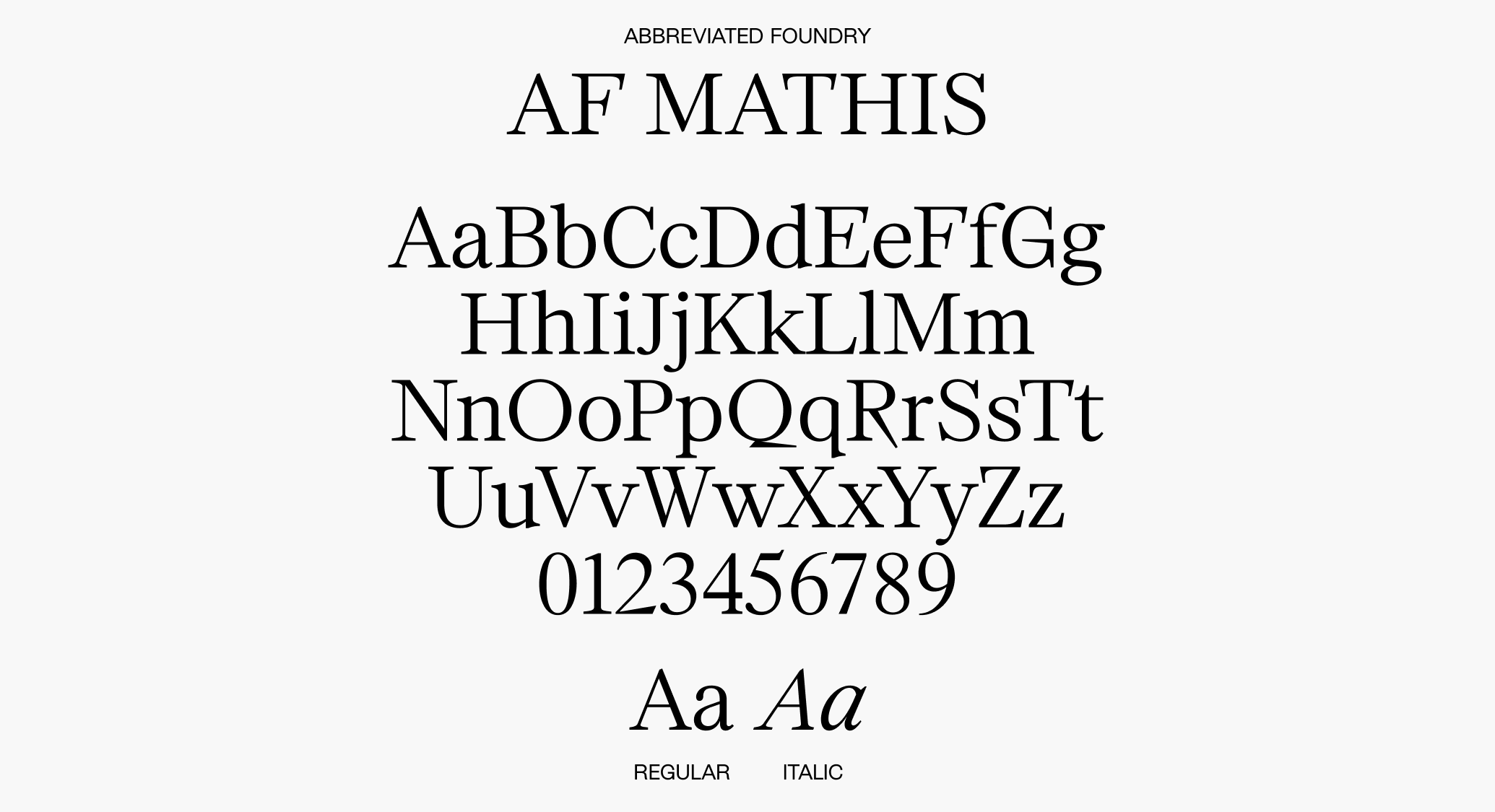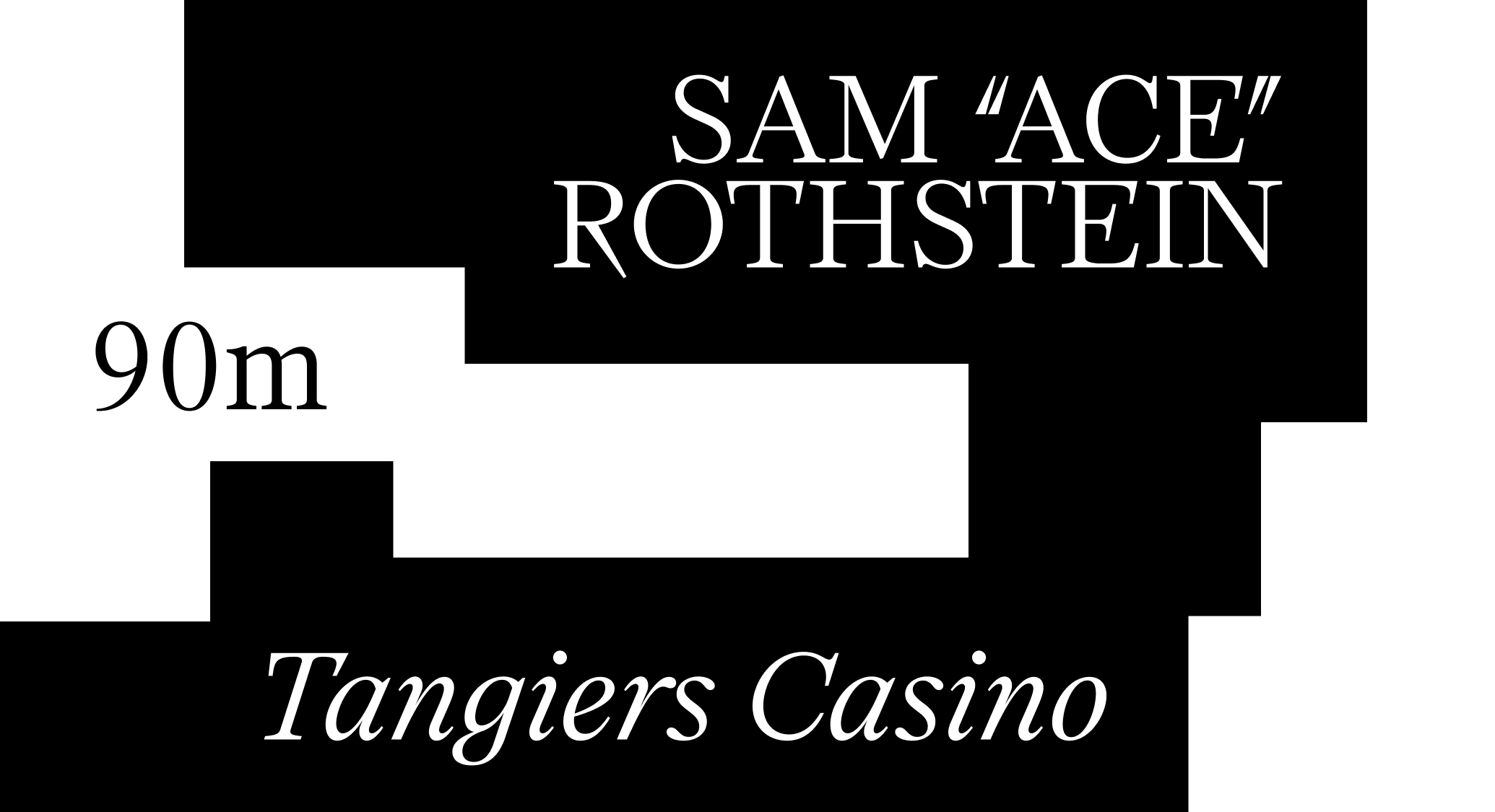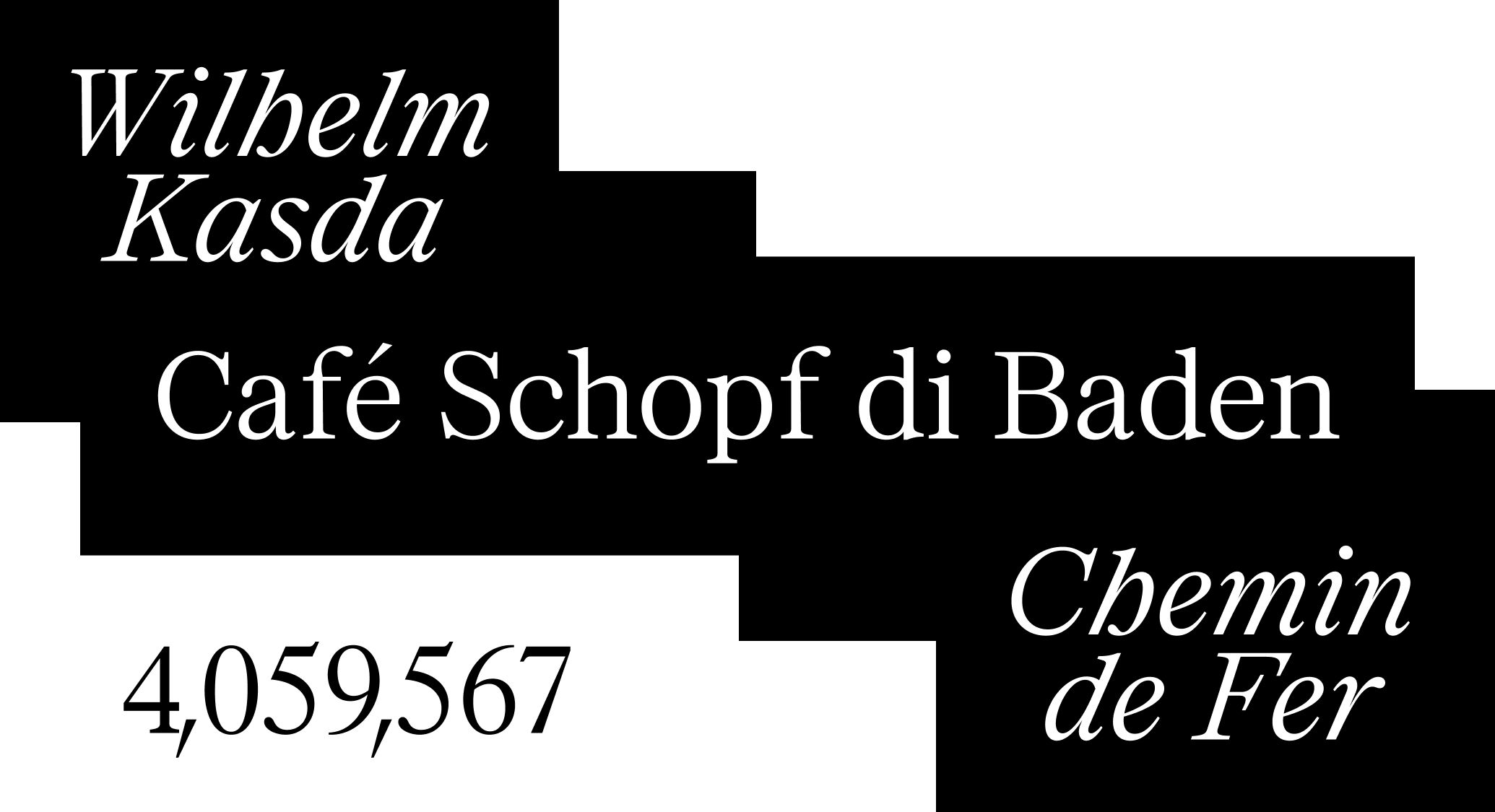
AF Mathis
Regular Italic
AF Mathis is the typographic equivalent of a perfectly tailored tuxedo. This serif is defined by razor-sharp styling and dagger-like details, including the spiked tail of the “Q,” stabbing leg of the “R,” and thorny cross-stroke of the “G.” The severe angularity of its Roman style is contrasted to the swashy, swaggering, script-inspired aesthetic of its Italic. Adorned in Mathis, every word is dressed to kill.